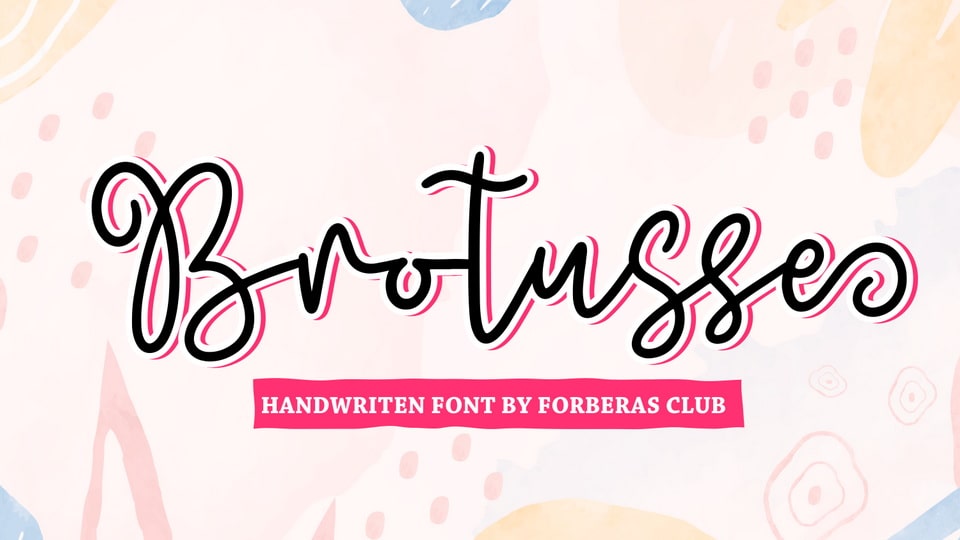
Download Brotusse font, a simple script typeface inspired by casual handwriting. It is especially designed for natural, organic designs with personal touch.